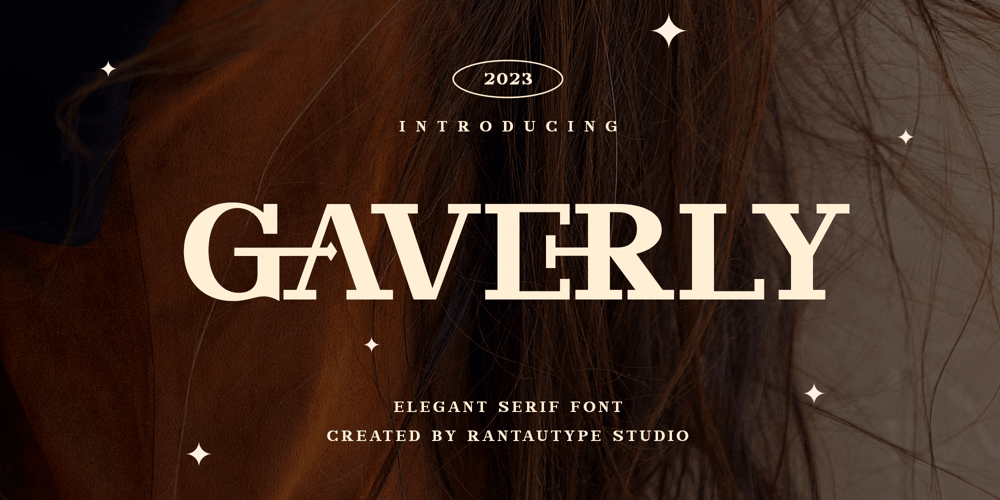
Gaverly
Gaverly font
Gaverly Font Family was designed by Yudi Pratama Chandra and published by RantauType. Gaverly contains 2 styles and family package options. Gaverly – a elegant display slab serif with Sophisticated shape. We love how shape it look make it professional. We keep this font looks fashionable, elegant, luxury, premium, modern, catchy and easy to use. Gaverly come with two font ( reguler and italic ), alternate, ligature and multinggual accent support.Gaverly is beautiful choice for any creative endeavor to make perfectly suitable for creating elegant, chic, lifestyle design such as logos, title, cover, branding, display and magazine, corporate, business project, wedding project, advestising project and much more. Now you can choice Gaverly to make your project stand out!Features: Standar character A-Z and a-z Numberial and Functional Alternate and ligature Works on PC & Mac Simple installations Accessible in Adobe Illustrator, Adobe Photoshop, Adobe InDesign, even work on Microsoft Word. PUA Encoded Characters – Fully accessible without additional design software. Fonts include Multilingual Support for: Afrikaans, Albanian, Asu, Basque, Bemba, Bena, Breton, Chiga, Cornish, Dutch, English, Estonian, Filipino, Finnish, Friulian, Galician, Gusii, Indonesian, Irish, Italian, Kabuverdianu, Kalenjin, Kinyarwanda, Luo, Luxembourgish, Luyia, Machame, Makhuwa-Meetto, Makonde, Malagasy, Manx, Morisyen, North, Ndebele, Nyankole, Oromo, Portuguese, Quechua, Romansh, Rombo, Rundi, Rwa, Samburu, Sango, Sangu, Scottish, Gaelic, Sena, Shambala, Shona, Soga, Somali, Spanish, Swahili, Swedish, Swiss, German.Thank you for your purchase!Hope you enjoy with our font!